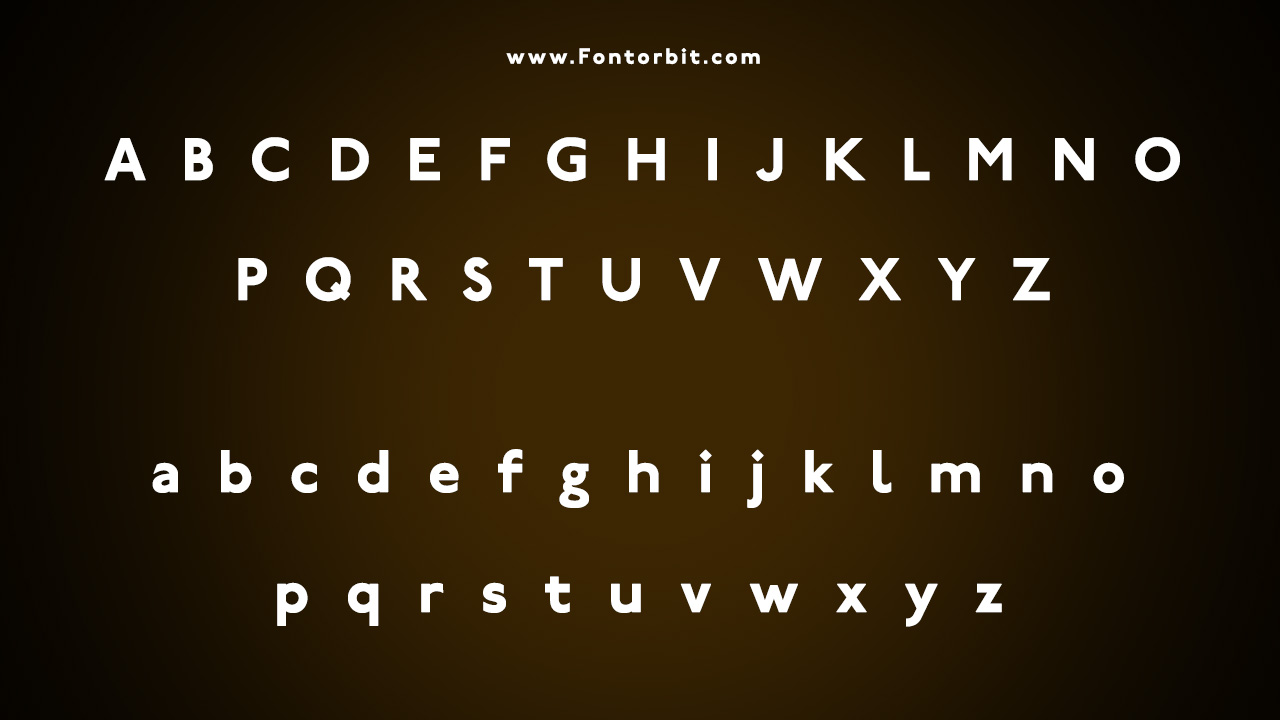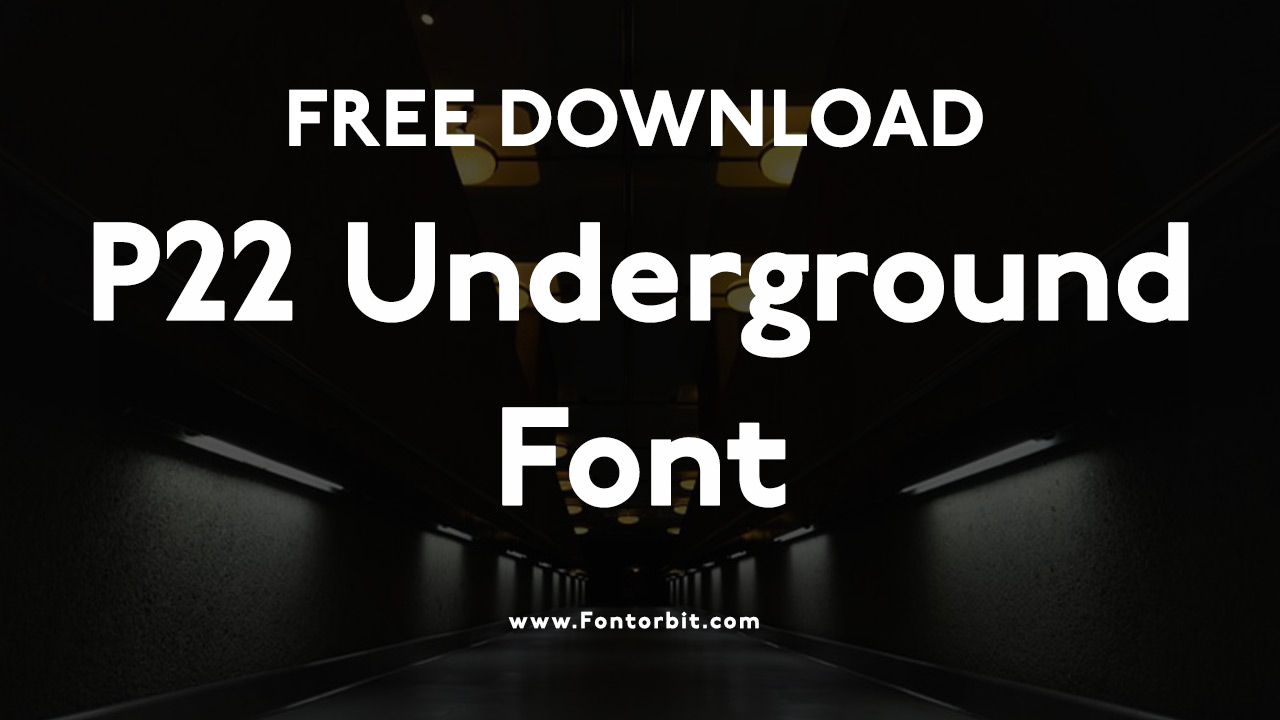
The P22 Underground font, designed by Richard Kegler and released by P22 Type Foundry in 1997, is a digital revival of Edward Johnston’s original Underground typeface, famously used in the London Underground transit system.
The P22 Underground font family captures the timeless, modernist essence of Johnston’s design, blending legibility with geometric precision.
P22 Underground Font Family Includes:
The P22 Underground font family is widely recognized for its clean, distinctive forms, which make it perfect for both body text and signage. The family includes a versatile range of weights and styles:
- P22 Underground Thin
- P22 Underground Light
- P22 Underground Book
- P22 Underground Medium
- P22 Underground DemiBold
- P22 Underground Heavy
- P22 Underground Thin Petite Caps
- P22 Underground Light Petite Caps
- P22 Underground Book Petite Caps
- P22 Underground Medium Petite Caps
- P22 Underground Demi Petite Caps
- P22 Underground Heavy Petite Caps
- P22 Underground Thin Small Caps
- P22 Underground Light Small Caps
- P22 Underground Book Small Caps
- P22 Underground Medium Small Caps
- P22 Underground Demi Small Caps
- P22 Underground Heavy Small Caps
Notable Uses Of P22 Underground
The P22 Underground font has been used across various design platforms, including:
- Transport Signage
- Branding and Logo Design
- Editorial Design
The P22 Underground font is perfect for:
- Transport and wayfinding signage
- Editorial and magazine layouts
- Corporate branding
- Minimalist design projects
The P22 Underground font is a timeless design that carries a rich history of use in transportation signage, editorial layouts, and branding projects. Its clean, geometric design provides designers with flexibility, making it an excellent choice for a variety of applications.
2.What Is P22 Underground Best Suited For?
It’s best for transport signage, branding, and editorial design.
3.Does The London Underground Font Inspire P22 Underground?
Yes, it is based on Edward Johnston’s London Underground typeface.
4.Can P22 Underground Be Used For Web Design?
Yes, it’s suitable for both print and digital design projects.
6.Is P22 Underground A Good Choice For Signage?
Absolutely, it’s historically used for transport signage due to its legibility.